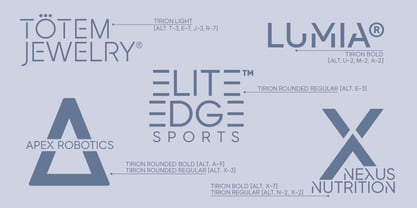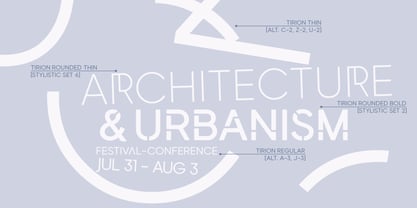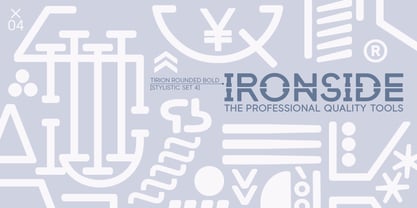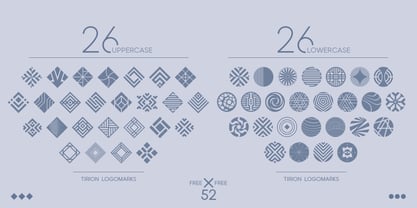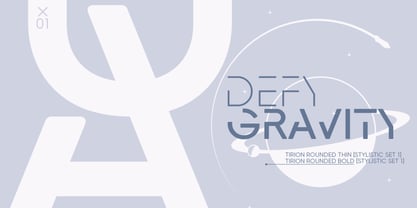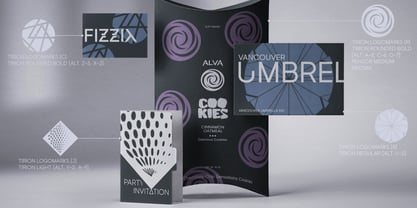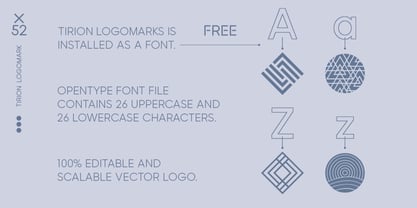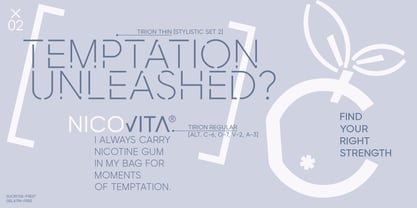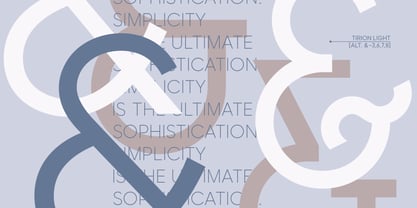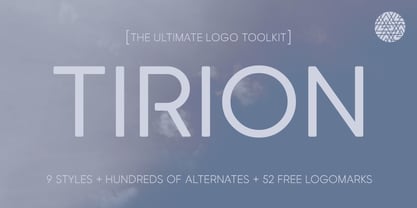
Tirion
by TirionType
The Tirion Font Family was designed by Stanislav Hatznik and published by TirionType. Tirion contains 8 styles and family package options.
Tirion — Logo Powerhouse with Hundreds of Alternates Every letter has up to 10 unique alternates + 9 stylistic sets — create unlimited custom logos and headlines in seconds, right in Photoshop or Illustrator. 980 glyphs packed with creative power. Built-in bonus that blows minds: 52 ready-to-use professional logomarks (26 uppercase + 26 lowercase) — activate Stylistic Set 20 and type A–Z / a–z for instant brand symbols. Perfect for branding, wordmarks, packaging, posters, fashion, tech — sharp minimalist or soft friendly vibe, you choose. Stop copying. Start creating logos clients can’t forget. Grab Tirion now. Try the free demo (limited glyphs & logomarks) before purchasing the full version.
TirionType — when every form carries an idea. A typeface should not merely fill space — it should carry intention. In every glyph, every curve, every inner contour lies a deliberate choice: form follows thought. Typography that stops being mere letters and becomes something alive. Typography that stops being mere letters and becomes something alive.